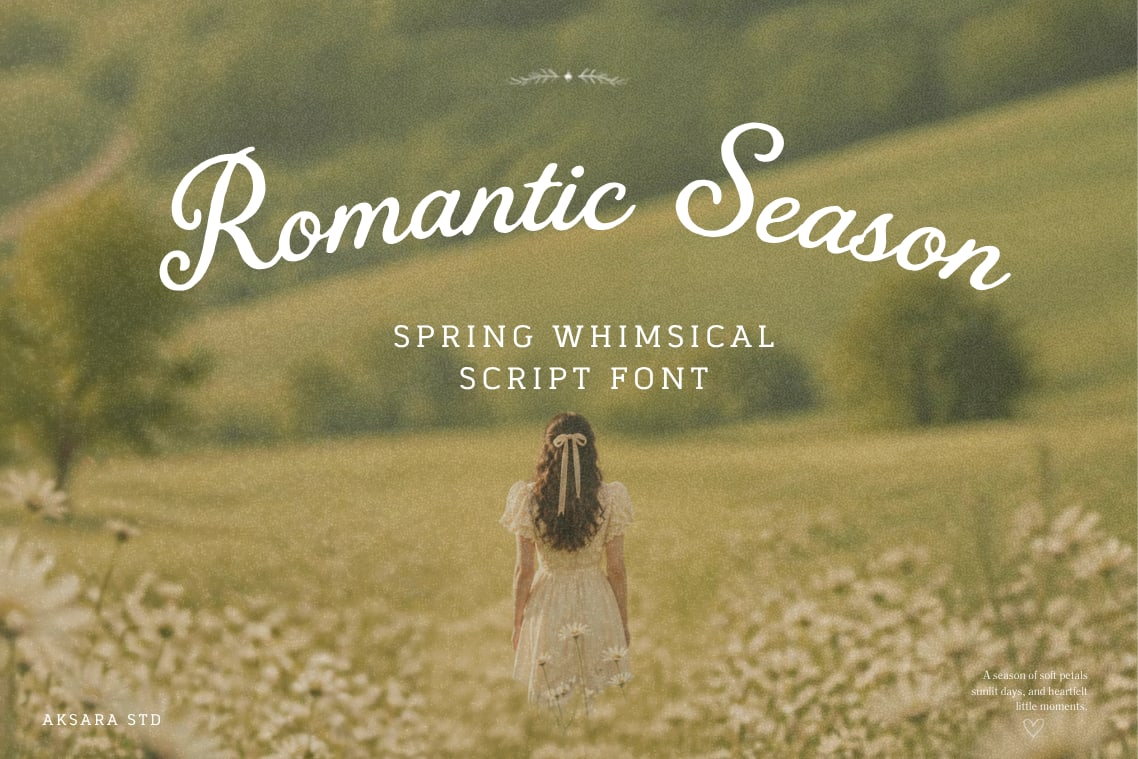
Whether you're designing wedding stationery, feminine branding, invitation cards, product packaging, editorial layouts, social media graphics, or seasonal marketing campaigns, Romantic Season helps bring warmth and personality to your work. The font balances elegance and playfulness, making it a versatile choice for both personal and commercial projects that need a soft and memorable touch.
Alternate Characters
Ligatures & Stylistic Features
Multilingual Support